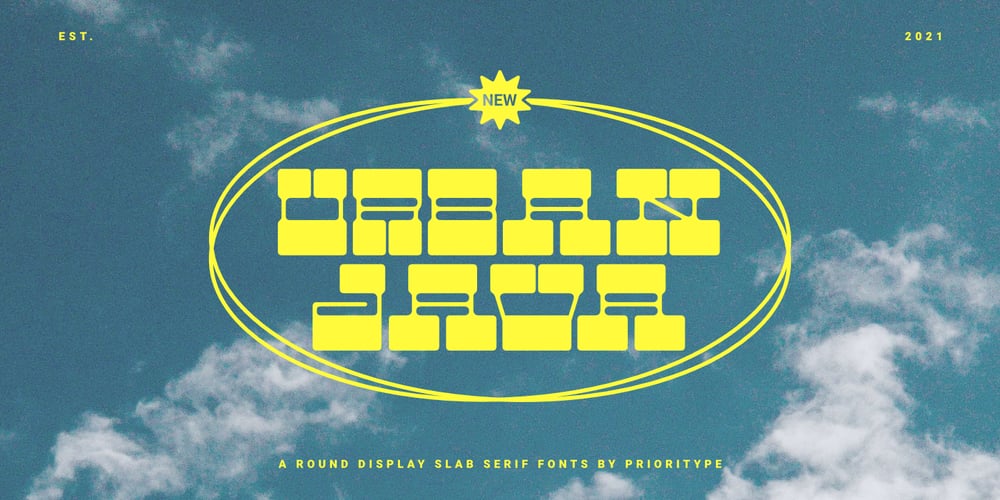
Urban Java
Urban Java font
Urban Java Font Family was designed by Prio Nurokhim Aji and published by Prioritype. Urban Java contains 2 styles and family package options. Urban Java – A Round Display Slab Serif Fonts.Yes, let’s toast to the amazing work for all of us. This typeface was formed to refresh a contemporary youth street design. Firm and soft impression can be spelled out.It really looks good to be consumed by today’s youth. Good for use in street designs such as t-shirts, posters, sticker, album or magazine covers and more.Features: All Caps, Numeral, Punctuation, Multilingual.Multilingual contained: Afrikaans, Albanian, Asu, Basque, Bemba, Bena, Breton, Catalan, Chiga, Cornish, Danish, Dutch, English, Estonian, Filipino, Finnish, French, Friulian, Galician, German, Gusii, Indonesian, Irish, Italian, Kabuverdianu, Kalenjin, Kinyarwanda, Luo, Luxembourgish, Luyia, Machame, Makhuwa-Meetto, Makonde, Malagasy, Manx, Morisyen, North Ndebele, Norwegian Bokmål, Norwegian Nynorsk, Nyankole, Oromo, Portuguese, Quechua, Romansh, Rombo, Rundi, Rwa, Samburu, Sango, Sangu, Scottish Gaelic, Sena, Shambala, Shona, Soga, Somali, Spanish, Swahili, Swedish, Swiss German, Taita, Teso, Uzbek (Latin), Volapük, Vunjo, Zulu.Are you ready?Get it now!